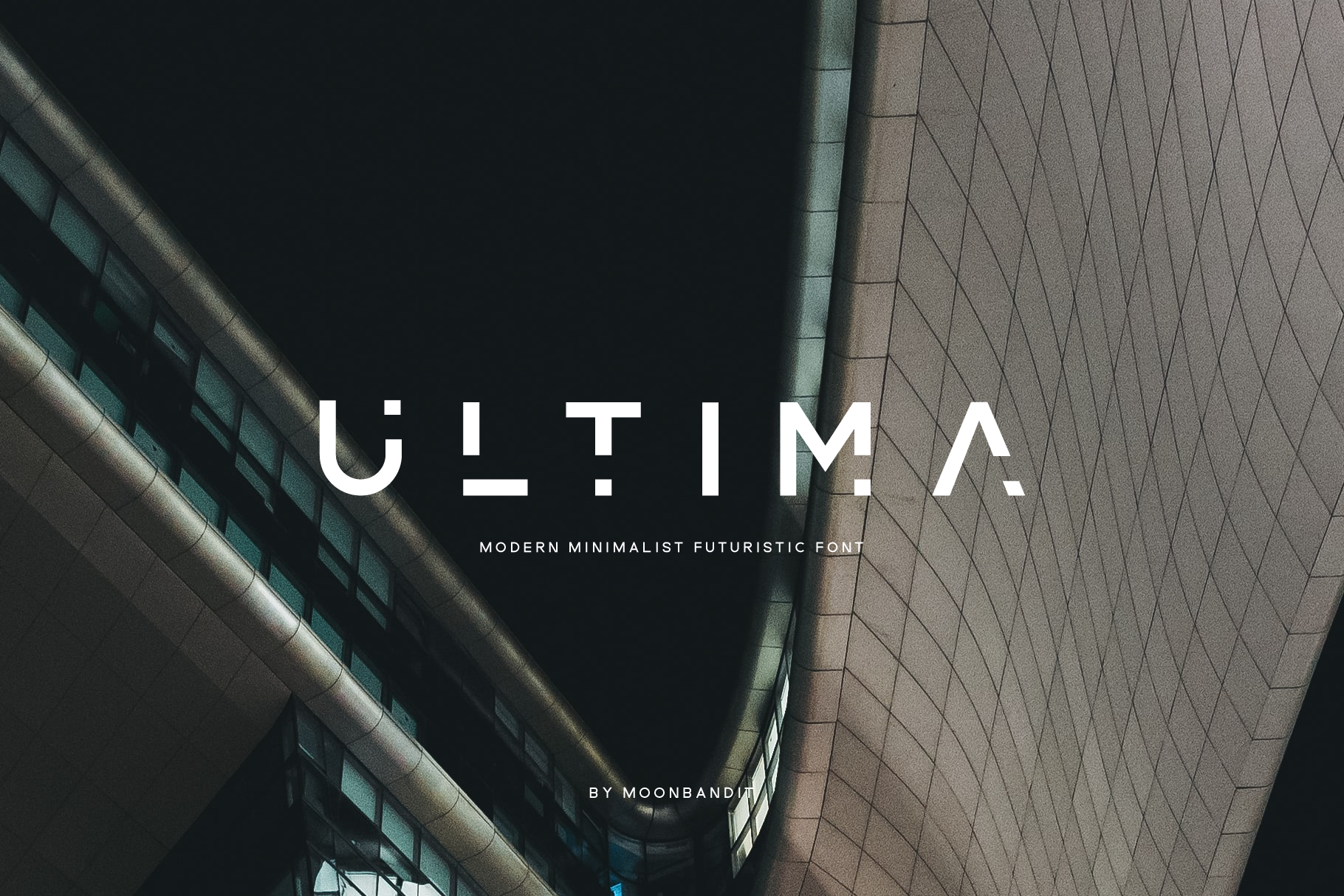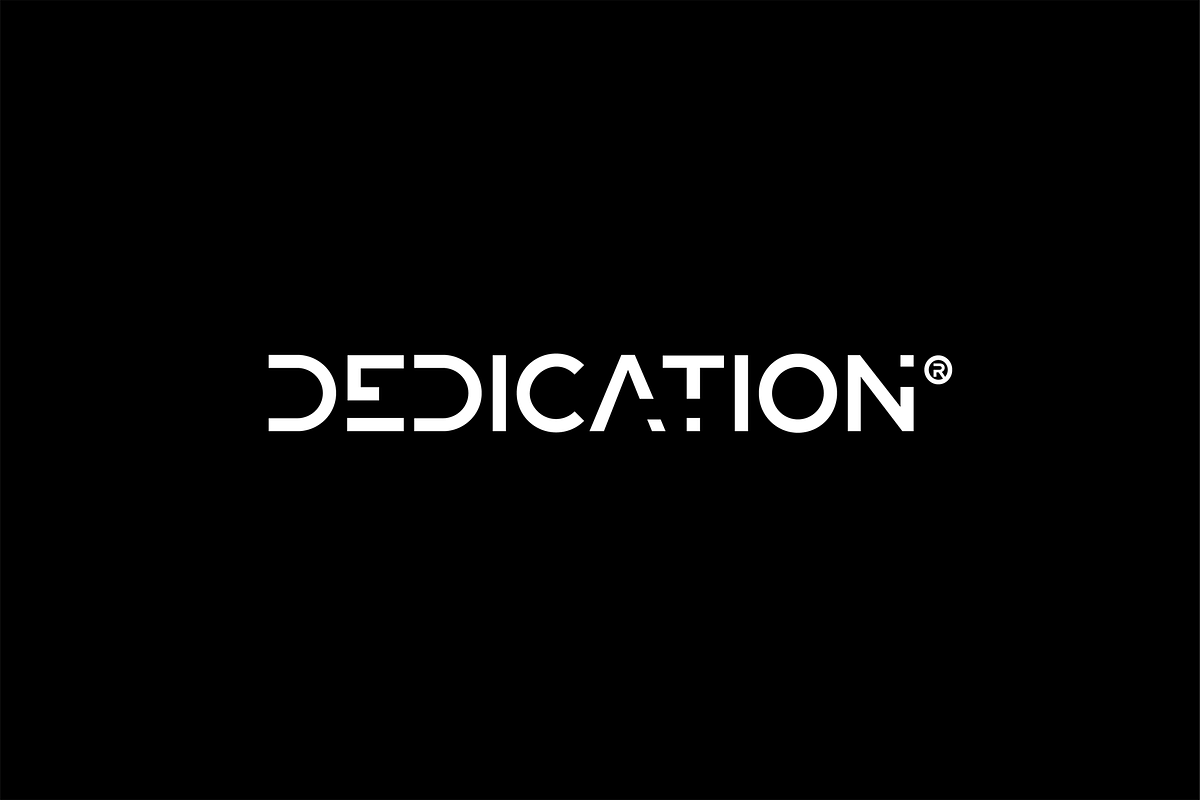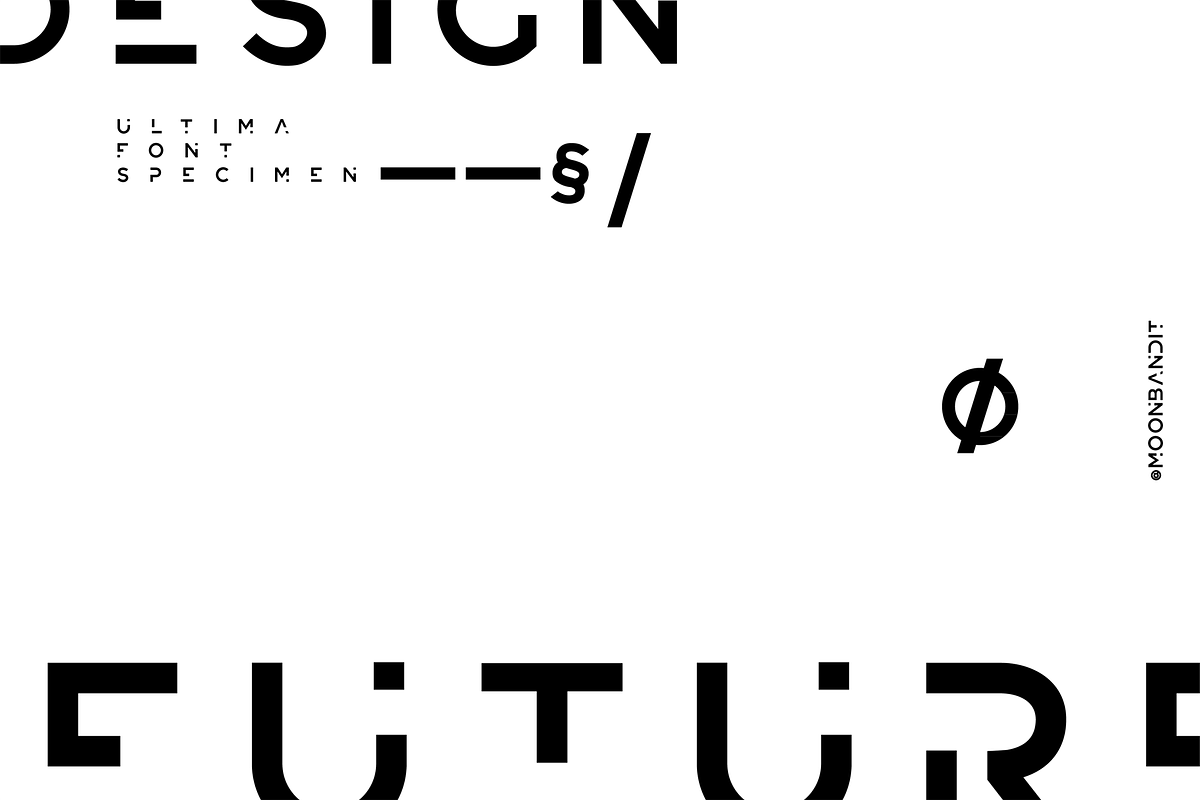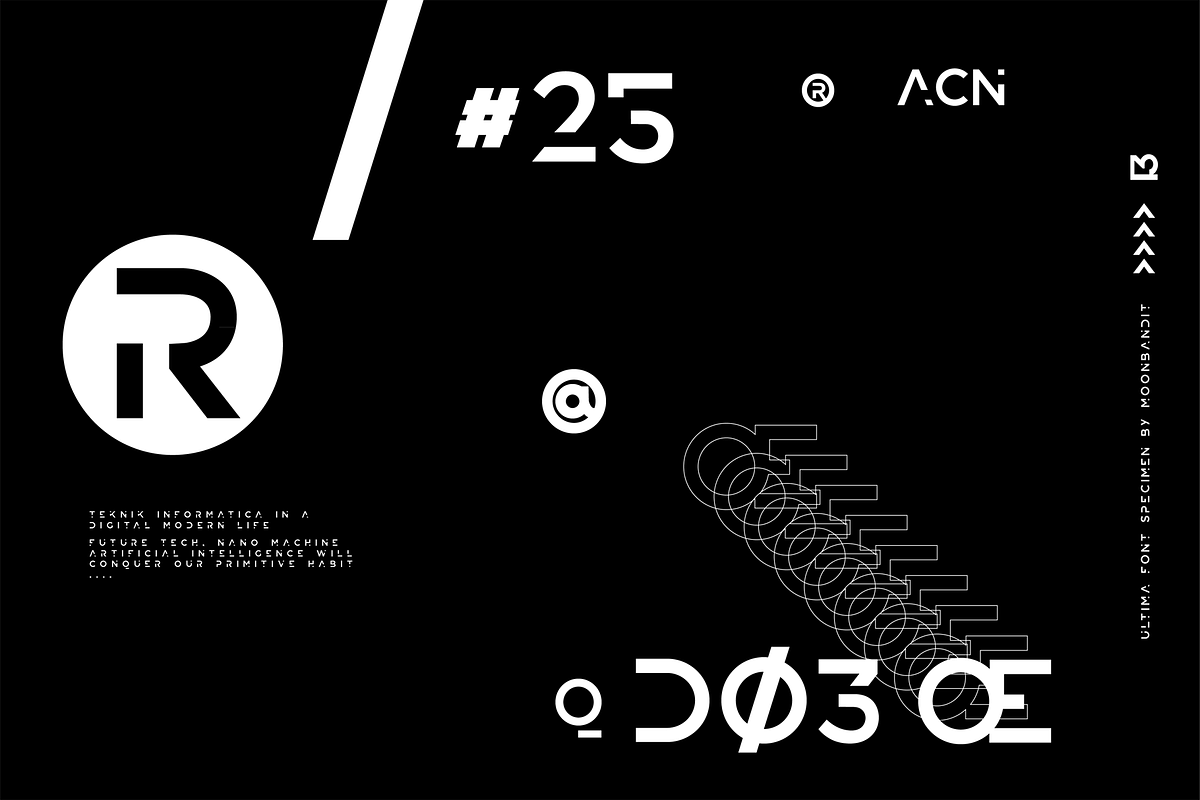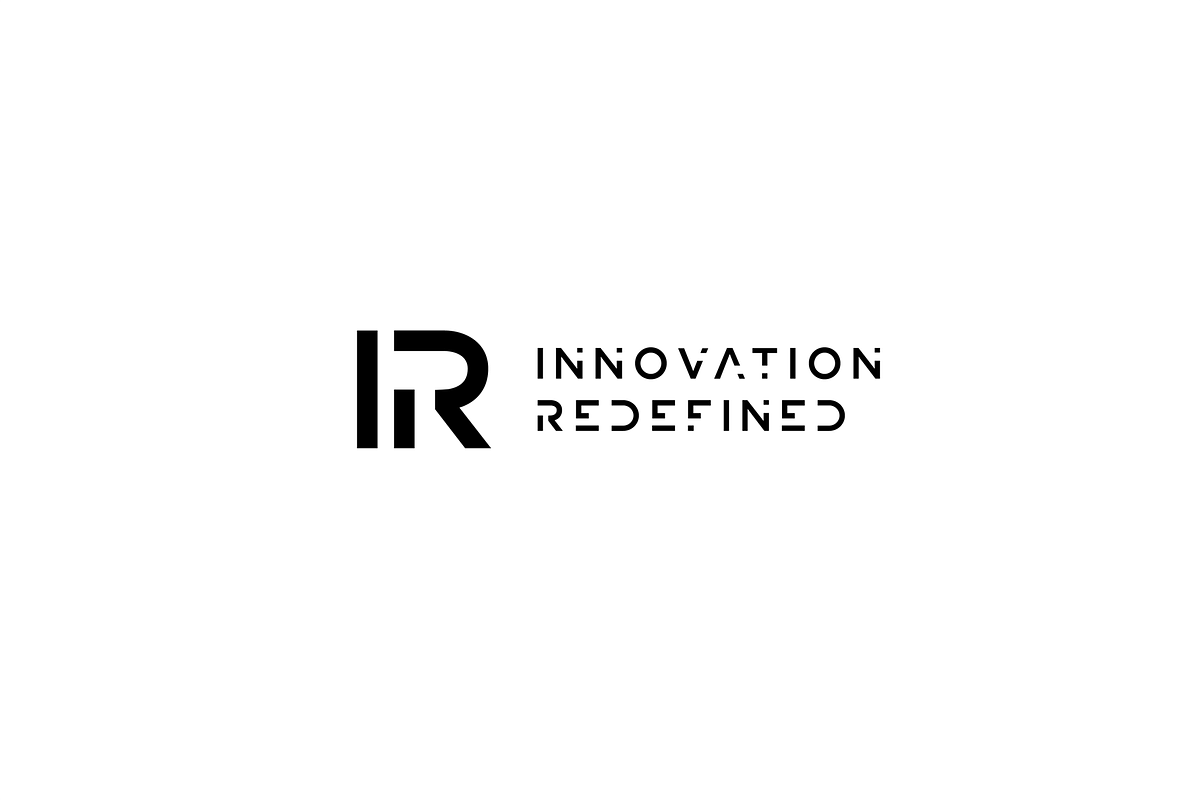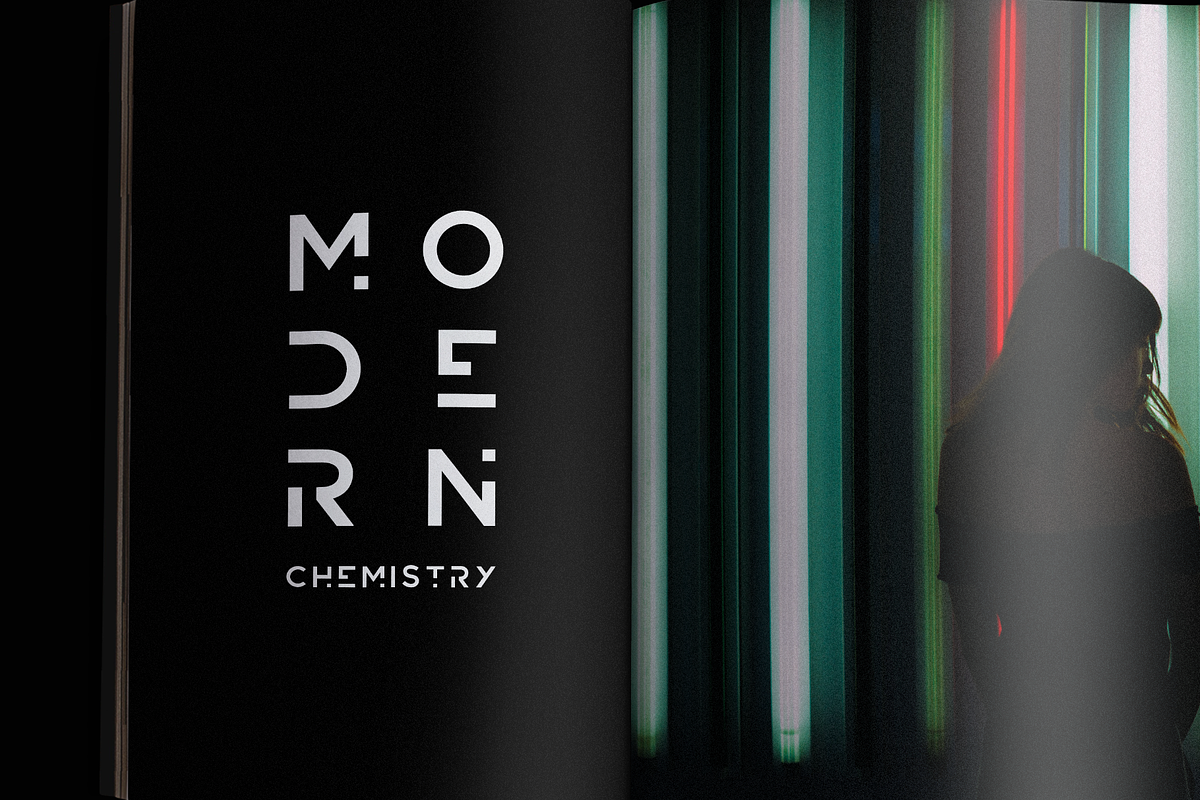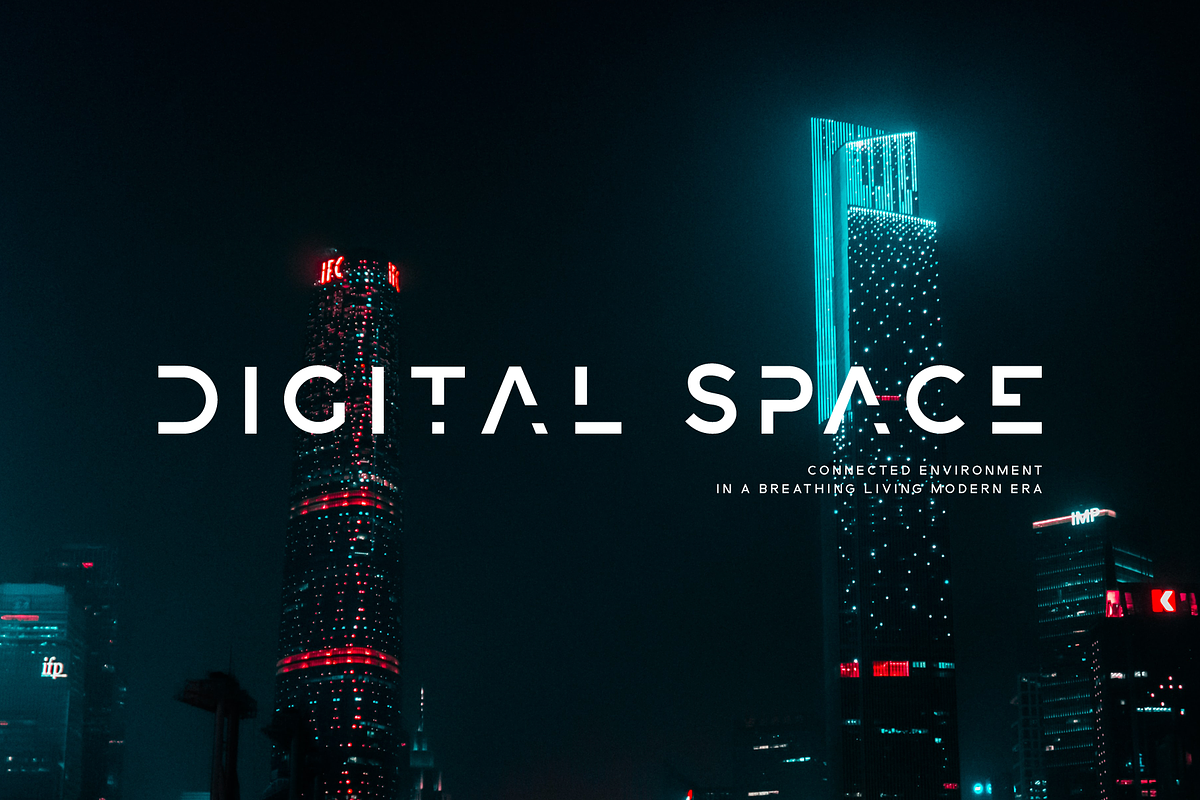
ULTIMA - modern futuristic font
A modern minimalist futuristic sans serif vector font
a font with a futuristic edge, geometric corners, perfect for technology, digital, modern futuristic theme. Perfect for logo, poster, headlines, title and many more projects